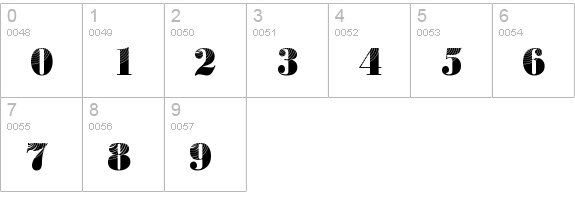
BodoniConcentric2-Regular Font Details
BodoniConcentric2-Regular is the standard, neutral variant in the BodoniConcentric2 typeface family \xE2\x80\x94 well suited to general body text, paragraphs, and standard typographic work.
BodoniConcentric2-Regular font is a visually captivating typeface that exudes sophistication and elegance. Its unique concentric design adds a modern and dynamic touch to any project, making it perfect for various creative endeavors such as branding, packaging, and editorial design. This font features clean lines and sharp edges that create a sleek and polished look, making it stand out in any design application. Its versatility allows it to be used for both display and body text, offering a wide range of possibilities for designers. What makes BodoniConcentric2-Regular font even more appealing is that it is available for free download at FontsMarket.com. This means that you can easily access this stunning typeface without any cost, making it a valuable addition to your font library. Whether you're working on a professional project or a personal endeavor, BodoniConcentric2-Regular font is sure to elevate your design and leave a lasting impression. Download it today and unleash your creativity with this elegant and modern typeface.